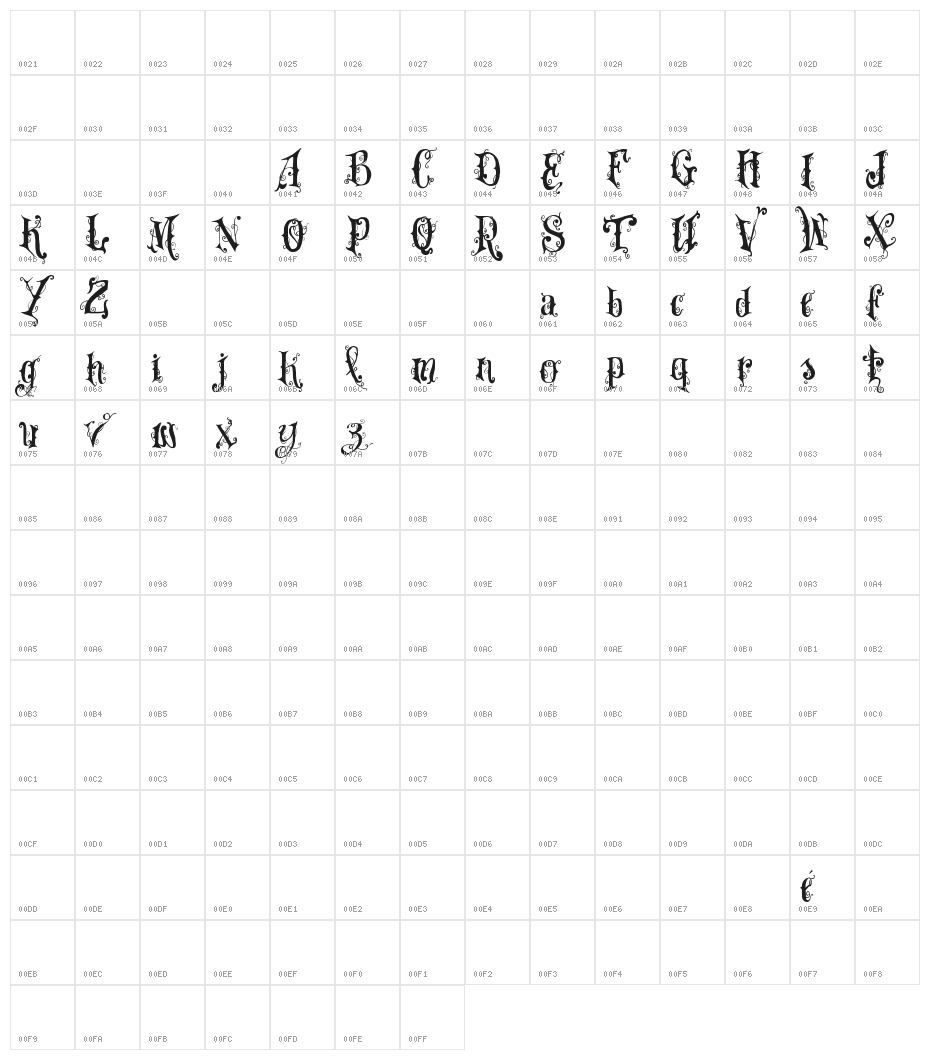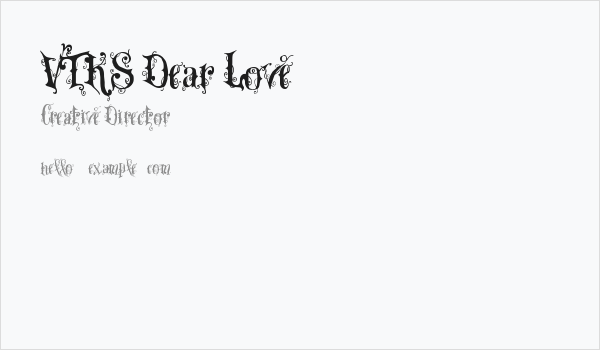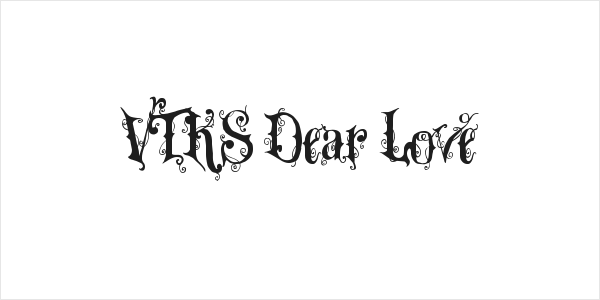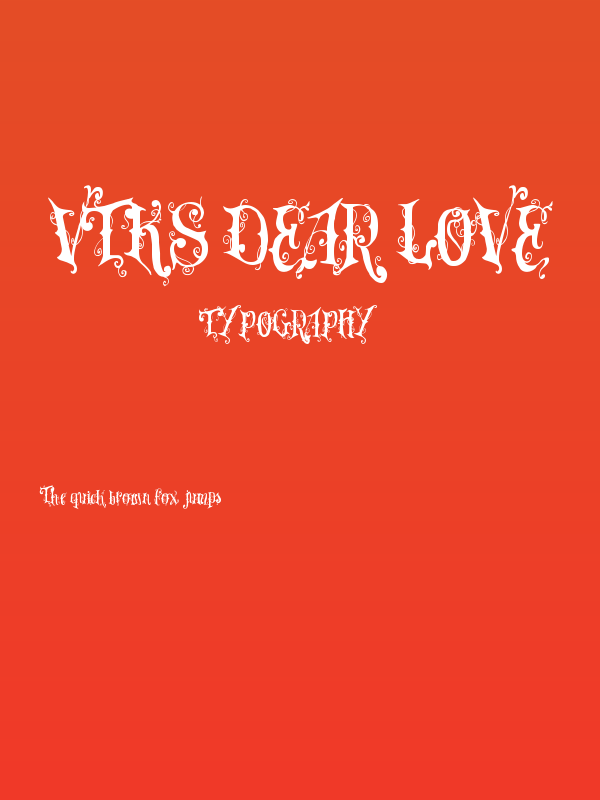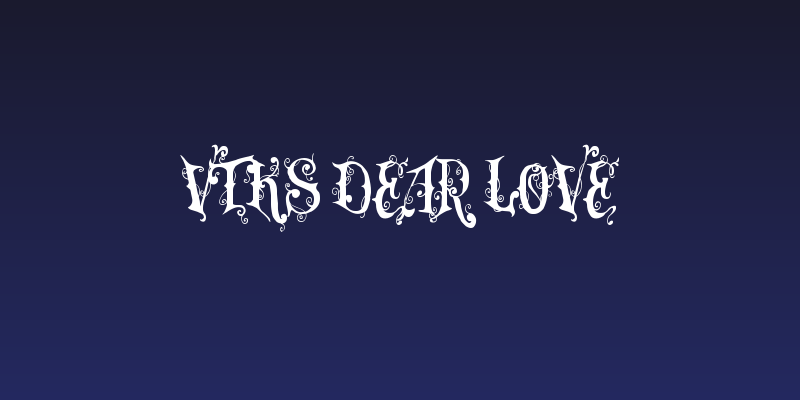
VTKS Dear Love Font
VTKS Dear Love Description
This font is a highly decorative and ornate typeface, characterized by intricate swirls and embellishments that extend from each letter. The uppercase and lowercase letters are designed with a gothic flair, featuring sharp edges and elaborate curls that give it a whimsical yet dark appearance. The numerals and special characters are equally adorned, maintaining the overall aesthetic. This font is ideal for projects that require a dramatic and artistic touch, such as invitations, posters, or themed events. Its unique style makes it stand out, capturing attention with its elaborate design.
| Proposed Projects | Ideal for invitations, posters, themed events, and artistic projects requiring a dramatic flair. |